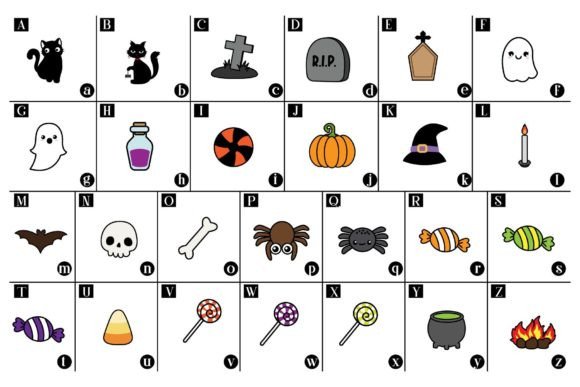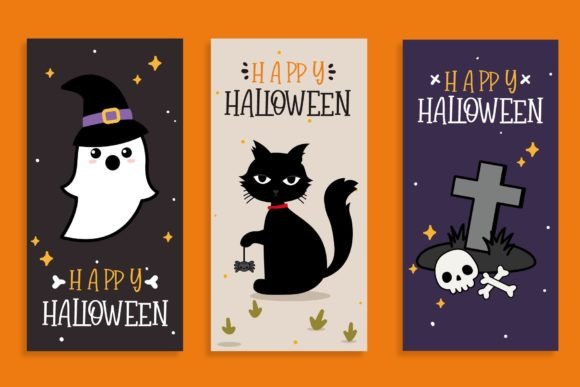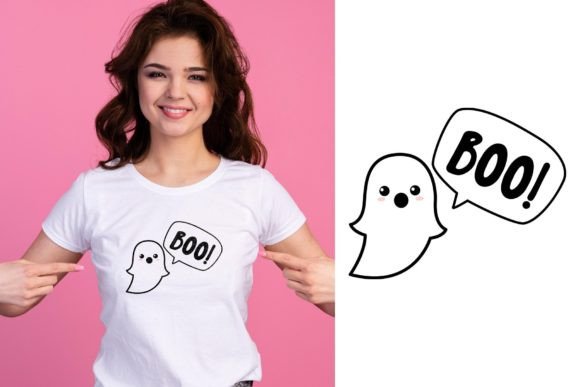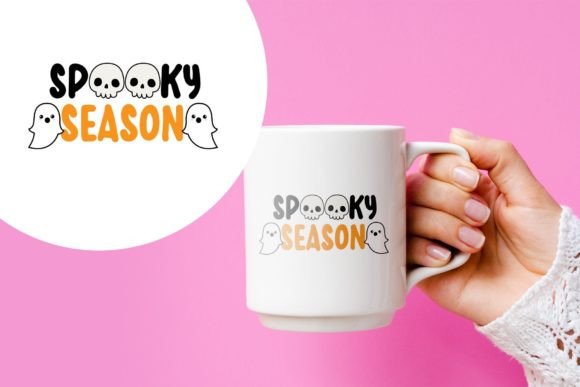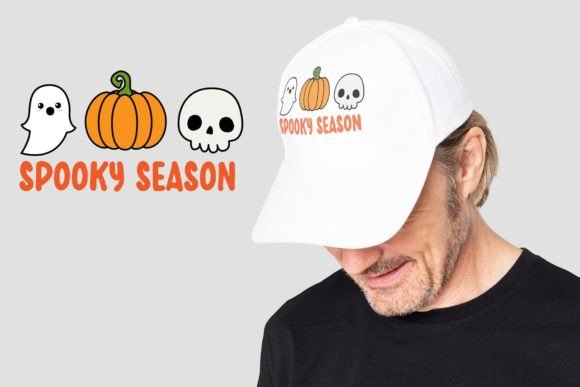
Introducing the Spooktacular Halloween Doodle Font
Are you ready to add a touch of Halloween magic to your creative projects? Look no further than the Halloween Doodle Font, a delightful Dingbats font designed to bring a cute and colorful twist to your designs. This charming font is perfect for creating eye-catching invitations, social media posts, greeting cards, and more.
What is the Halloween Doodle Font?
The Halloween Doodle Font is a specially designed font that features adorable Halloween-themed characters, including ghosts, bats, pumpkins, and more. This font is an OpenType full-color (SVG) font, which means it can be used in a variety of creative projects, from digital designs to print materials.
Creative Project Ideas
The Halloween Doodle Font is perfect for a wide range of creative projects, including:
- Halloween party invitations
- Blog posts and website headers
- Digital papers and scrapbooking projects
Why Choose the Halloween Doodle Font?
So why choose the Halloween Doodle Font for your creative projects? Here are just a few reasons:
- Unique and eye-catching designs: The Halloween Doodle Font features adorable and colorful characters that are sure to grab attention.
- Versatile: The font can be used in a wide range of creative projects, from digital designs to print materials.
If you’re looking for a fun and creative way to add a touch of Halloween magic to your designs, the Halloween Doodle Font is the perfect choice. With its adorable characters, easy-to-use design, and versatility, this font is sure to become a favorite in your creative toolkit. So why wait? Download the Halloween Doodle Font today and start creating spooktacular designs!